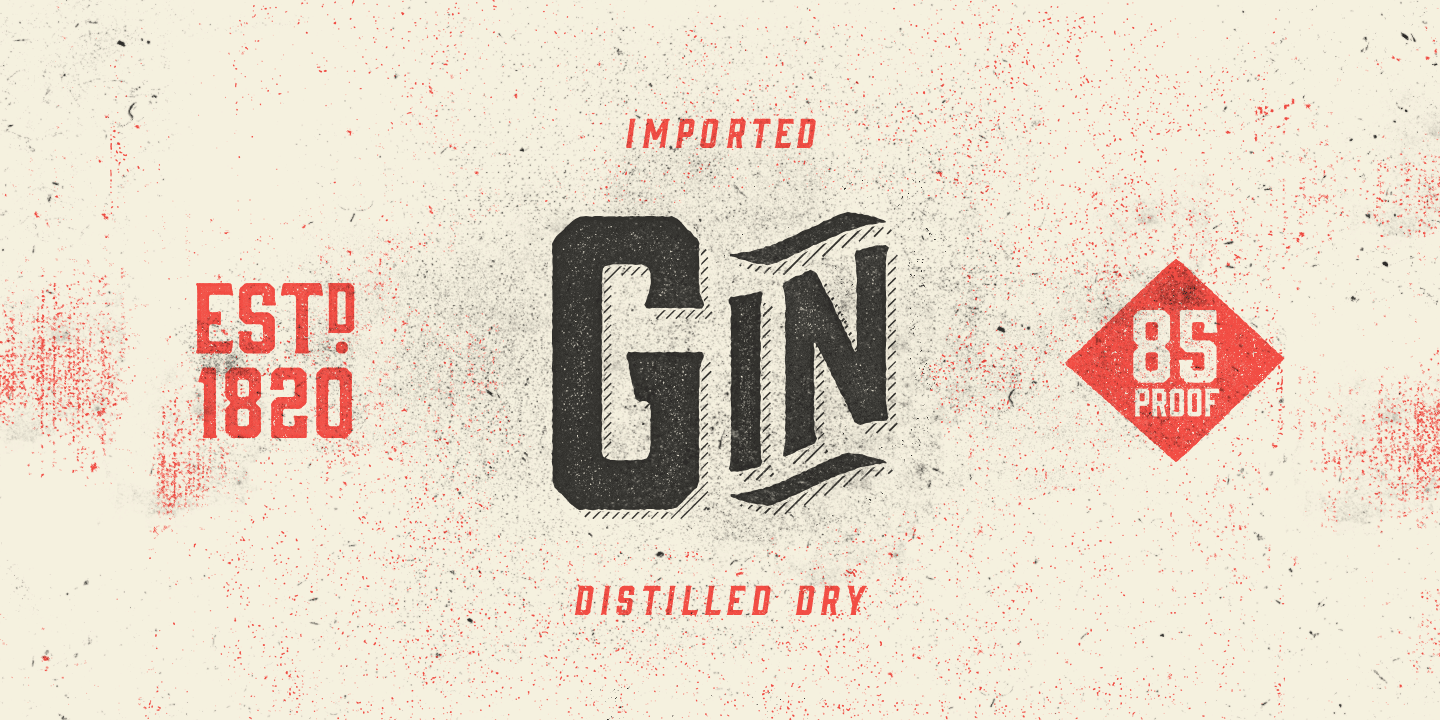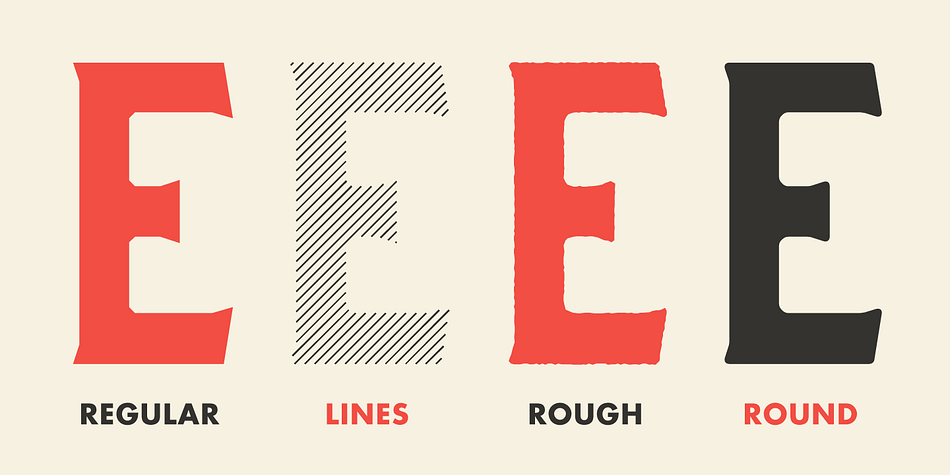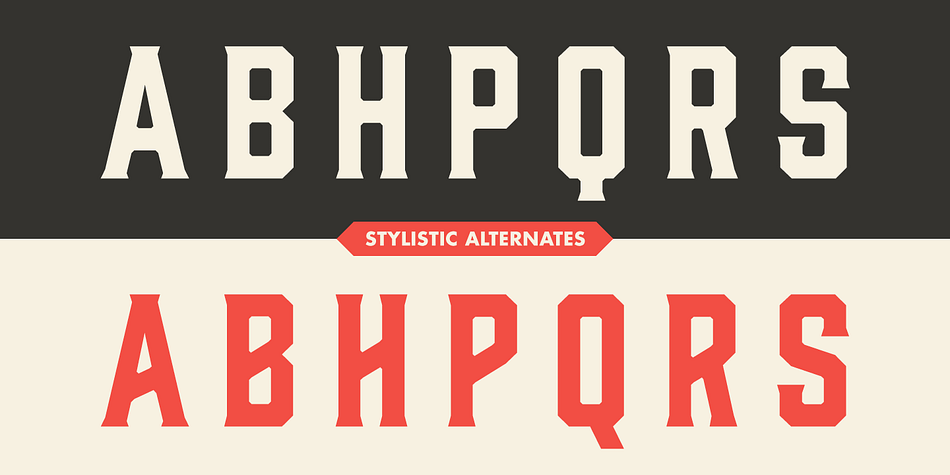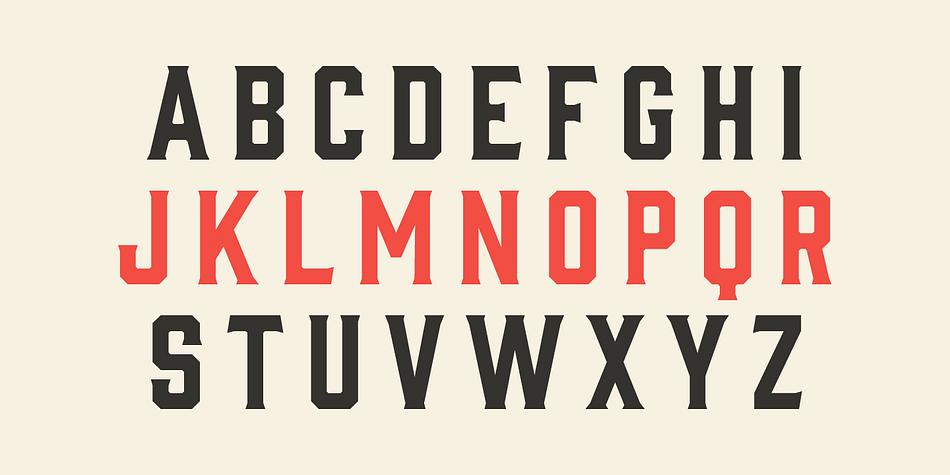
Gin is a display serif font family. This typeface has eight styles and was published by Fort Foundry.
Like a brother to the Bourbon family, Gin is distilled from similar letterforms, but condensed less. This vintage display typeface was inspired by the likes of old serifs and classic bottles of whiskey and gin.
Features include: Stylistic Alternates, Discretionary Ligatures, and Multiple Language Support.